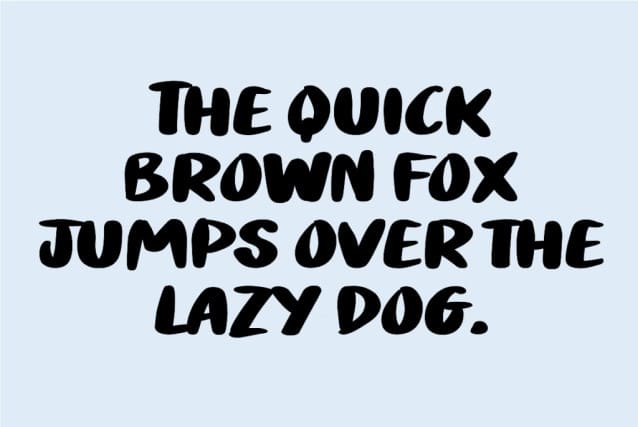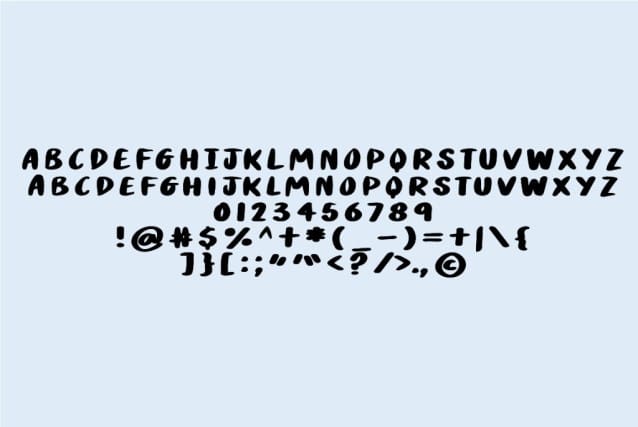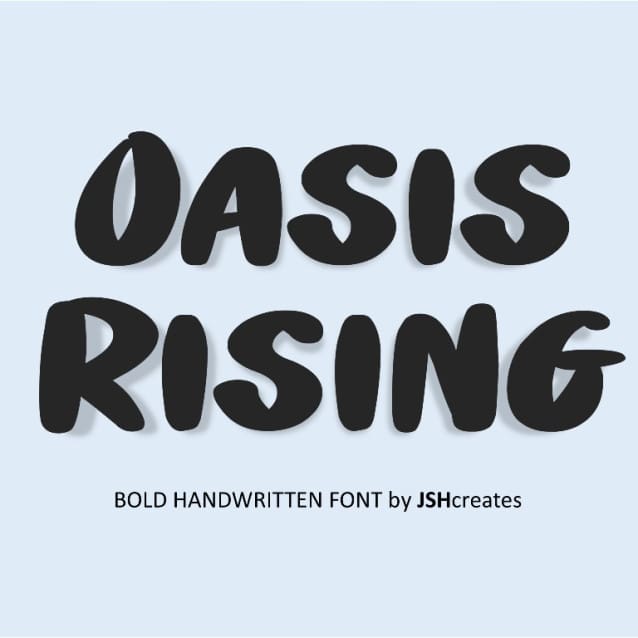
Oasis Rising Font
Oasis Rising Font: Fun and bold handwritten font. Perfect for advertising and display purposes, including banners, book covers, shirts, posters, logos and much more!